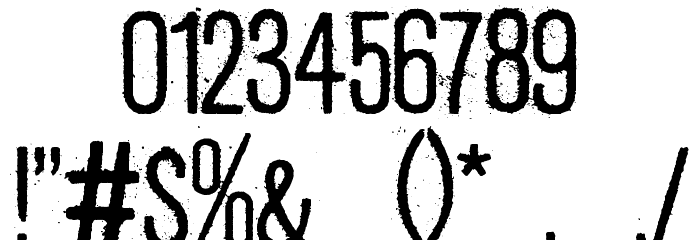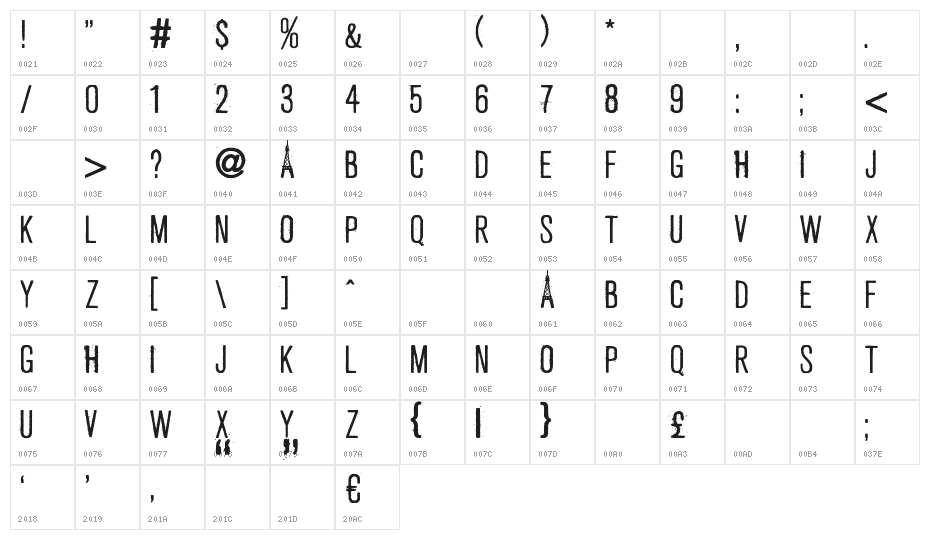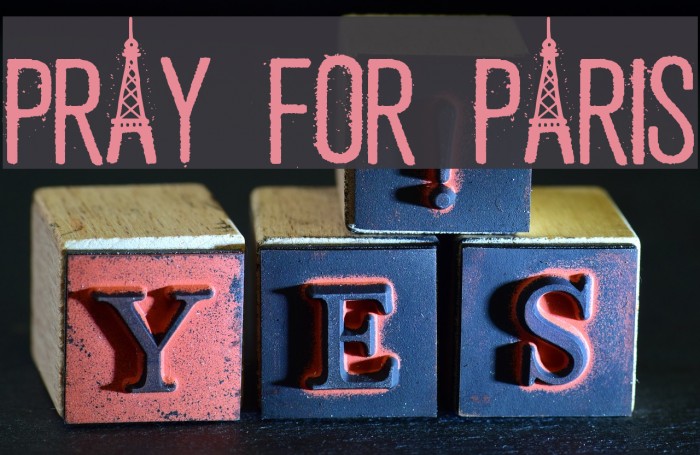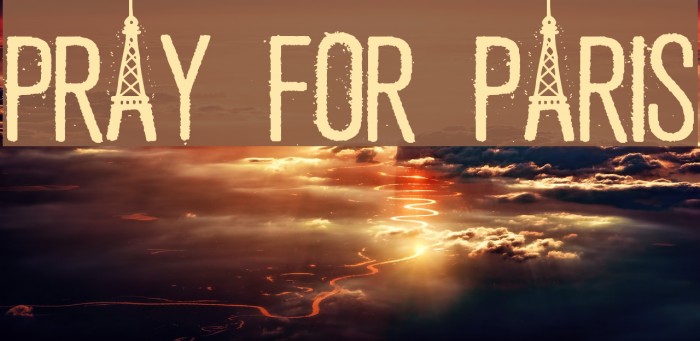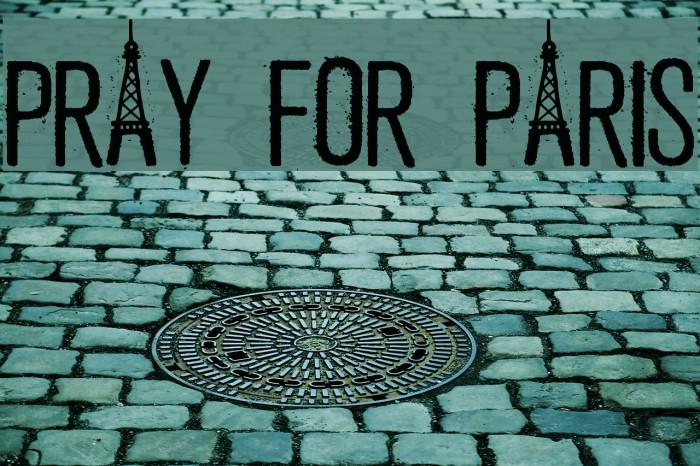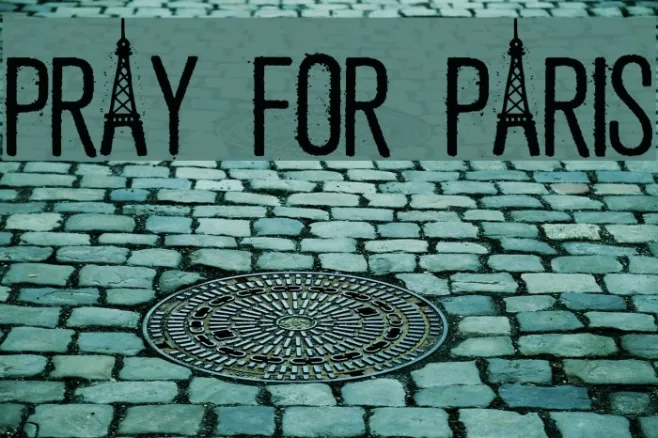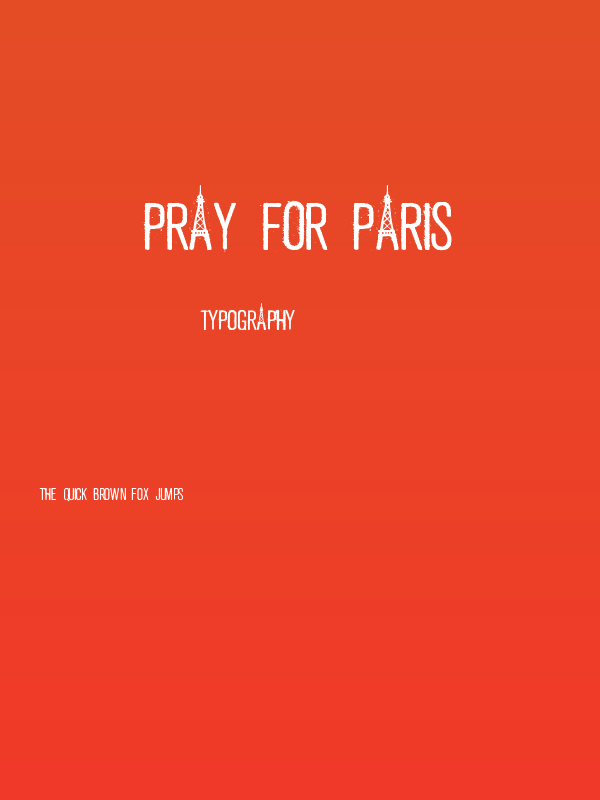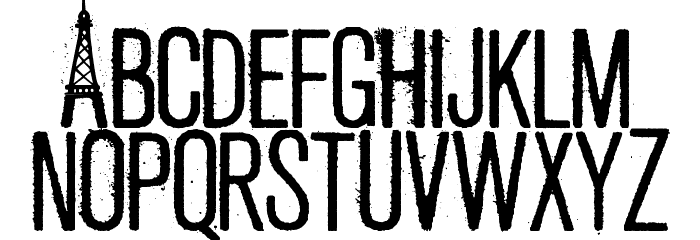
PRAY FOR PARIS Font
PRAY FOR PARIS Description
This font features a bold, distressed style with a unique character that incorporates an Eiffel Tower motif as part of the letter 'A'. The uppercase letters are tall and narrow, with a rough texture that gives a vintage, worn appearance. The numbers and special characters follow the same distressed aesthetic, maintaining consistency throughout the set. The font's design evokes a sense of urban grit and artistic flair, making it suitable for projects that require a strong visual impact.
| Proposed Projects | Ideal for posters, album covers, event flyers, and branding that seeks to convey a sense of urban edge or artistic expression. |